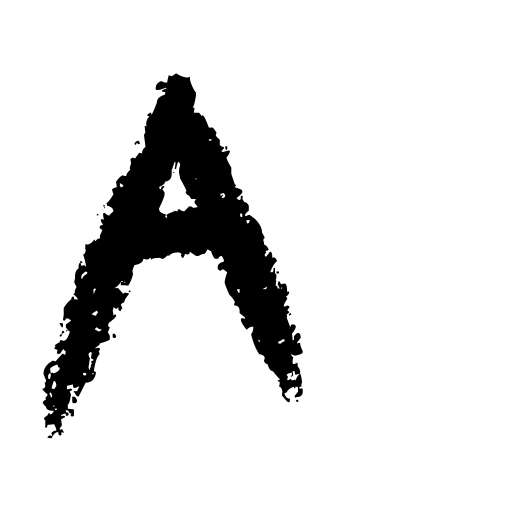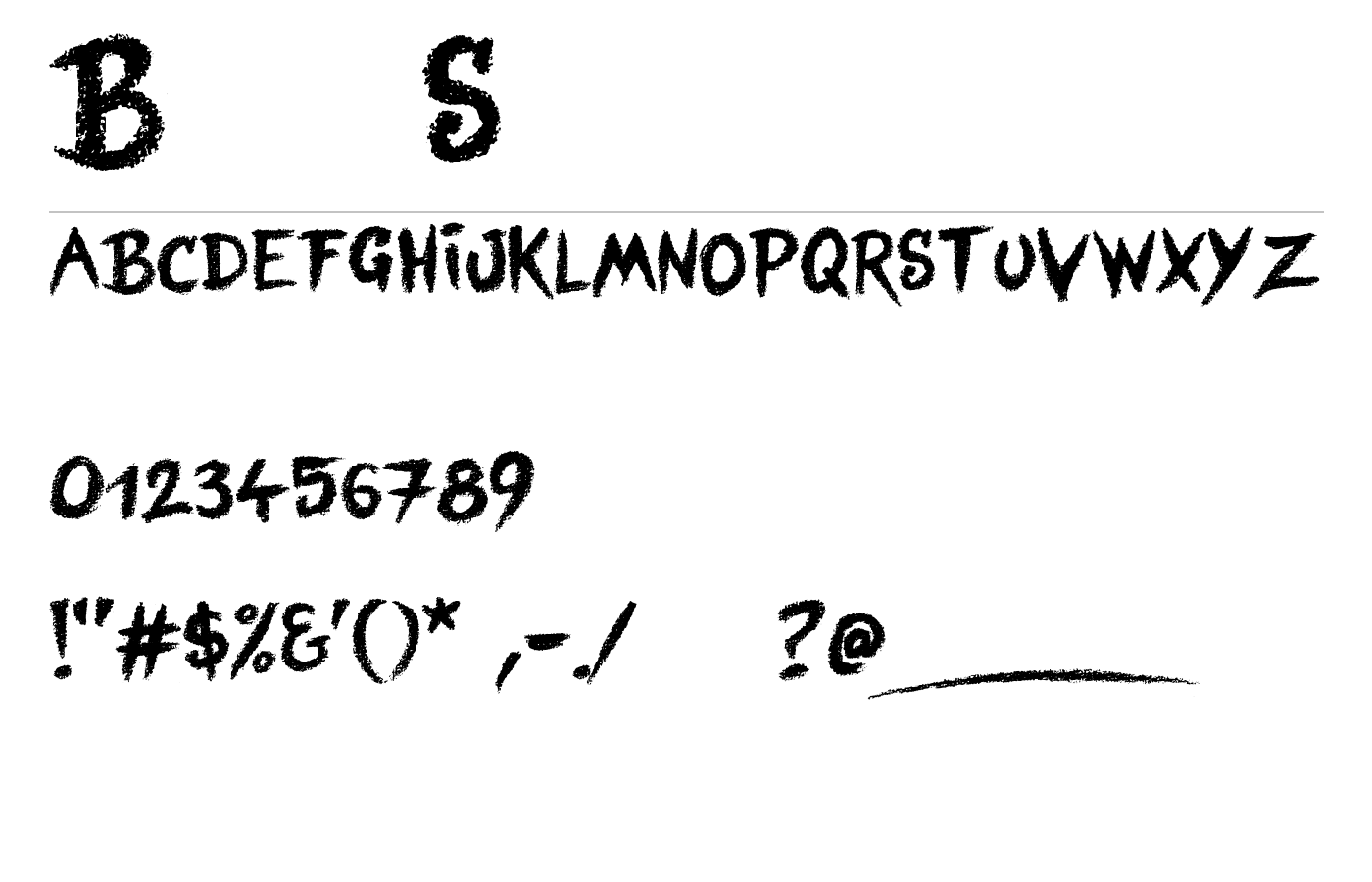
Blind Signature is a bold, textured handwritten sans serif font that conveys a raw, authentic, and slightly rugged feel. Its irregular, brush-like strokes and unique character shapes make it perfect for expressive, artistic designs such as logos, posters, and packaging that seek to communicate creativity and individuality. This font works best in headlines or display settings where its distinctive personality can stand out and add an informal, edgy vibe.
Blind Signature Font